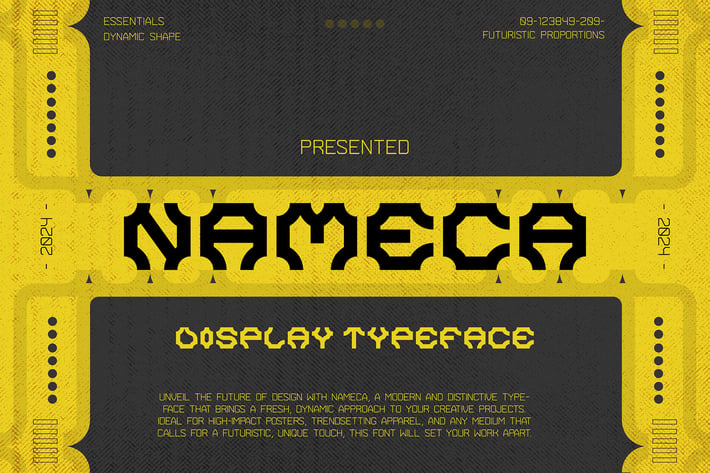
Nameca - Display Typeface
Nameca - Display Typeface BOLD VERSION
Nameca is a bold sans serif font featuring modern, futuristic, clean, characters that seem to dance along the baseline.
Add this font to your most creative ideas, and notice how it makes them stand out!
Nameca is a bold sans serif font featuring modern, futuristic, clean, characters that seem to dance along the baseline.
Add this font to your most creative ideas, and notice how it makes them stand out!